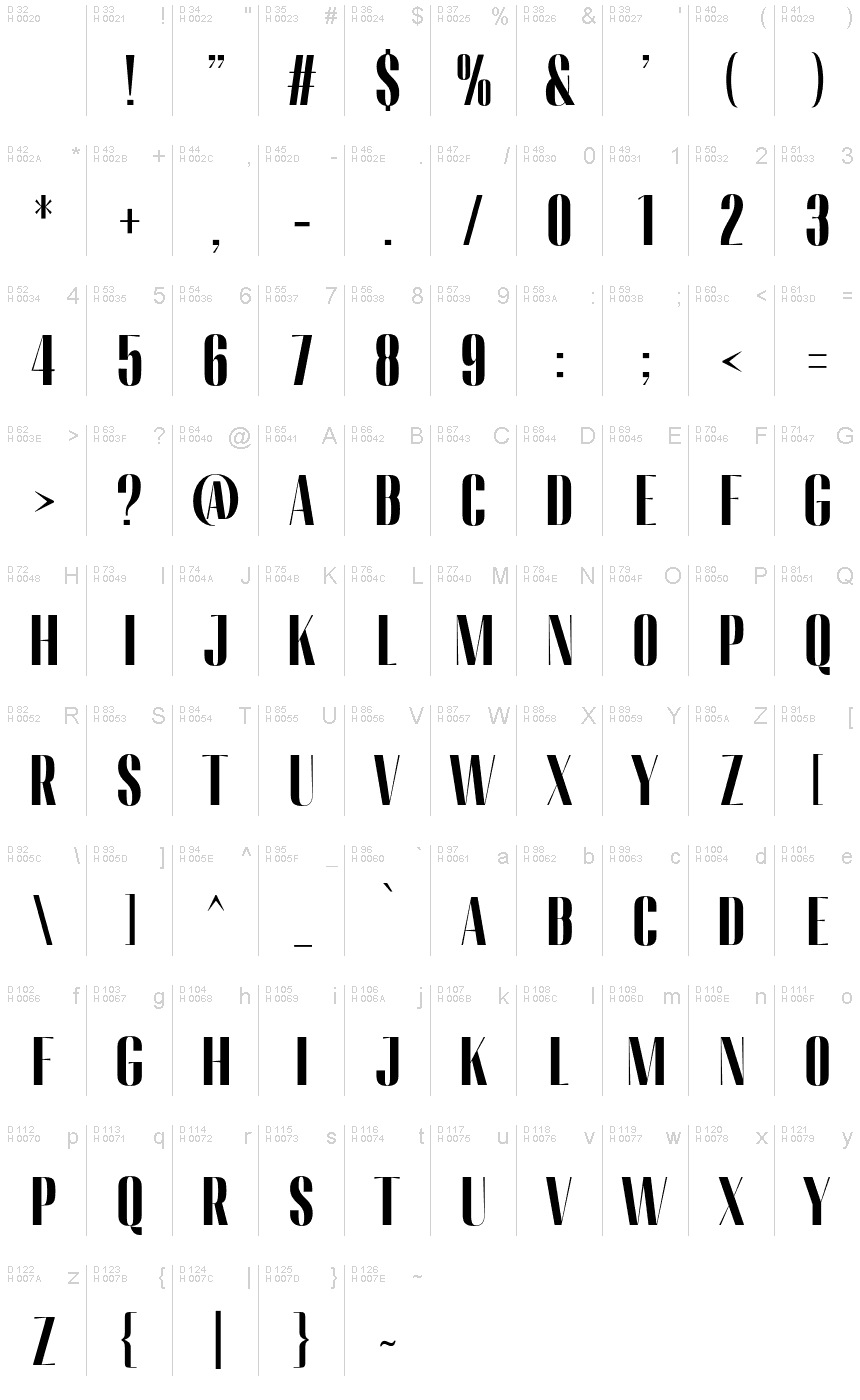
Migha-BlackCondensed
Migha Black Condensed is a bold sans serif typeface that exudes strength, power, and elegance. Designed by Seniors Studio, this extra-condensed font family is perfect for headlines, titles, logos, and branding projects that require a strong and bold presence. Its sleek and modern design makes it suitable for a wide range of creative projects such as fashion magazines, tech startups, or luxury brands. Migha Black Condensed commands attention with its clean lines and sharp edges while retaining an air of sophistication. Whether you're designing a website or creating marketing materials, Migha Black Condensed is the perfect font to elevate your project to the next level.